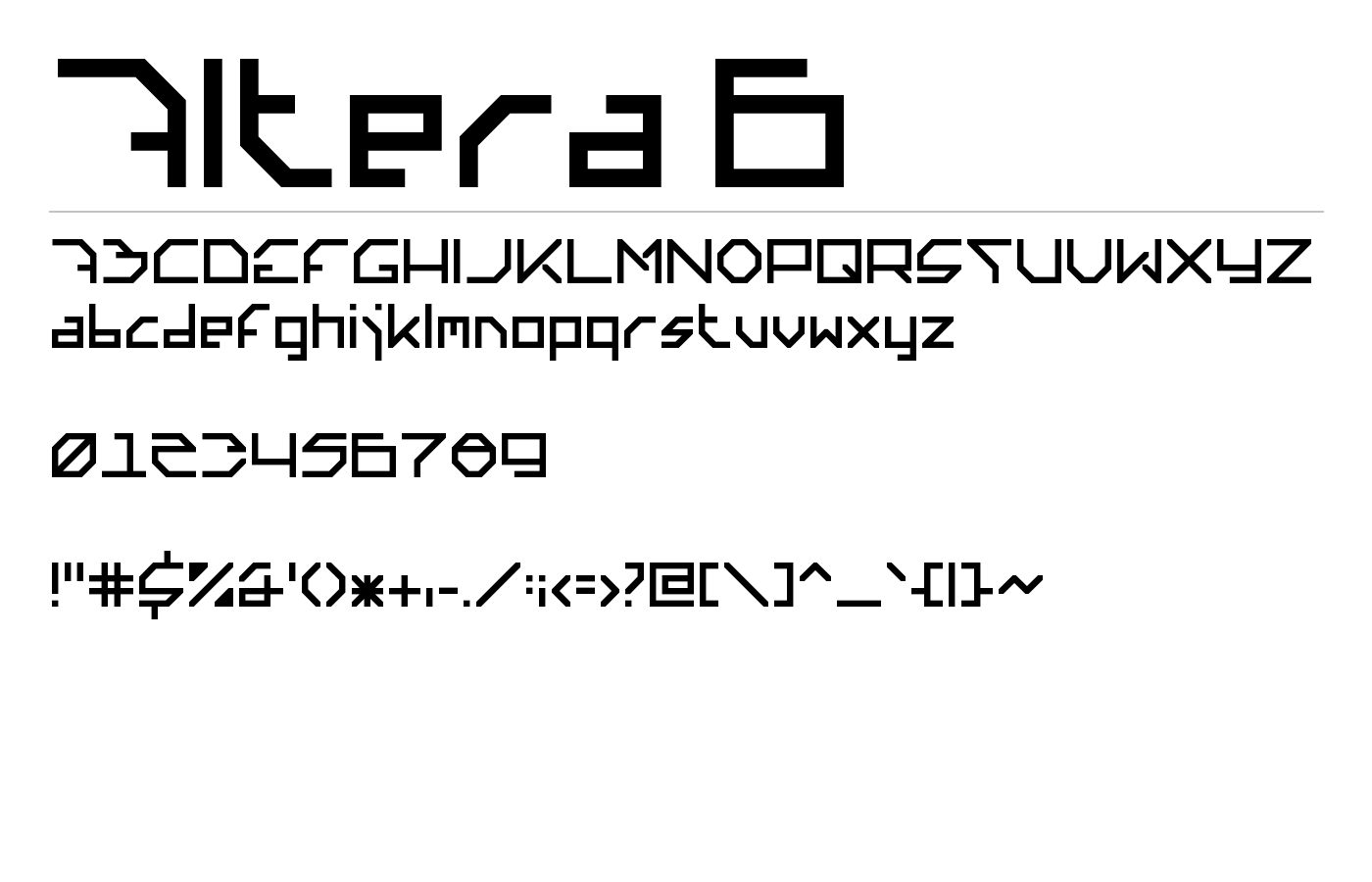
Altera 6 is a futuristic sans serif font characterized by its sharp, geometric shapes and angular strokes. With a condensed width and medium x-height, it exudes a modern, tech-inspired vibe perfect for digital and sci-fi themed projects. This font works best for striking headlines, logos, and branding where a bold, innovative aesthetic is desired.
Altera 6 Font
About Altera 6 Font